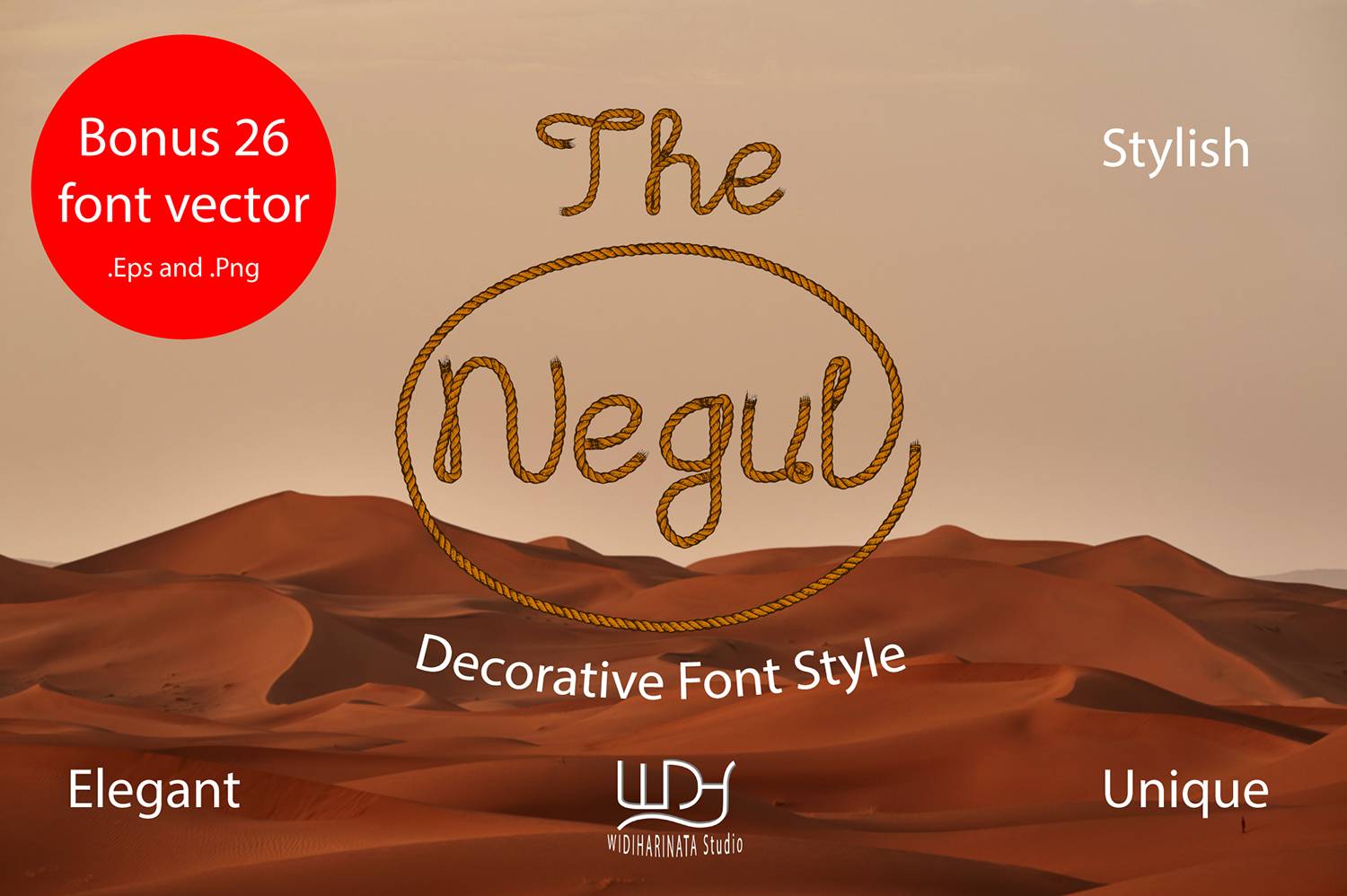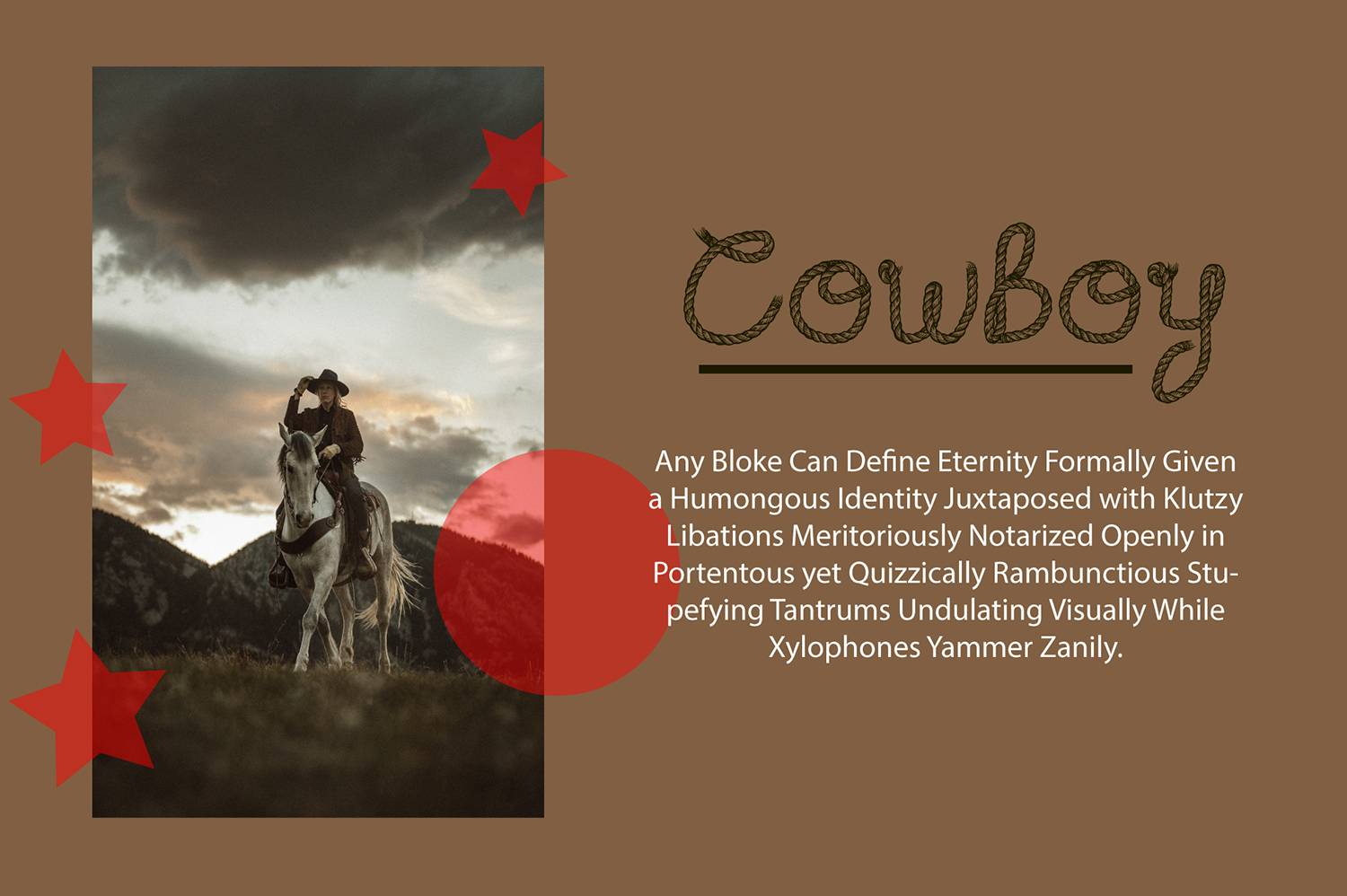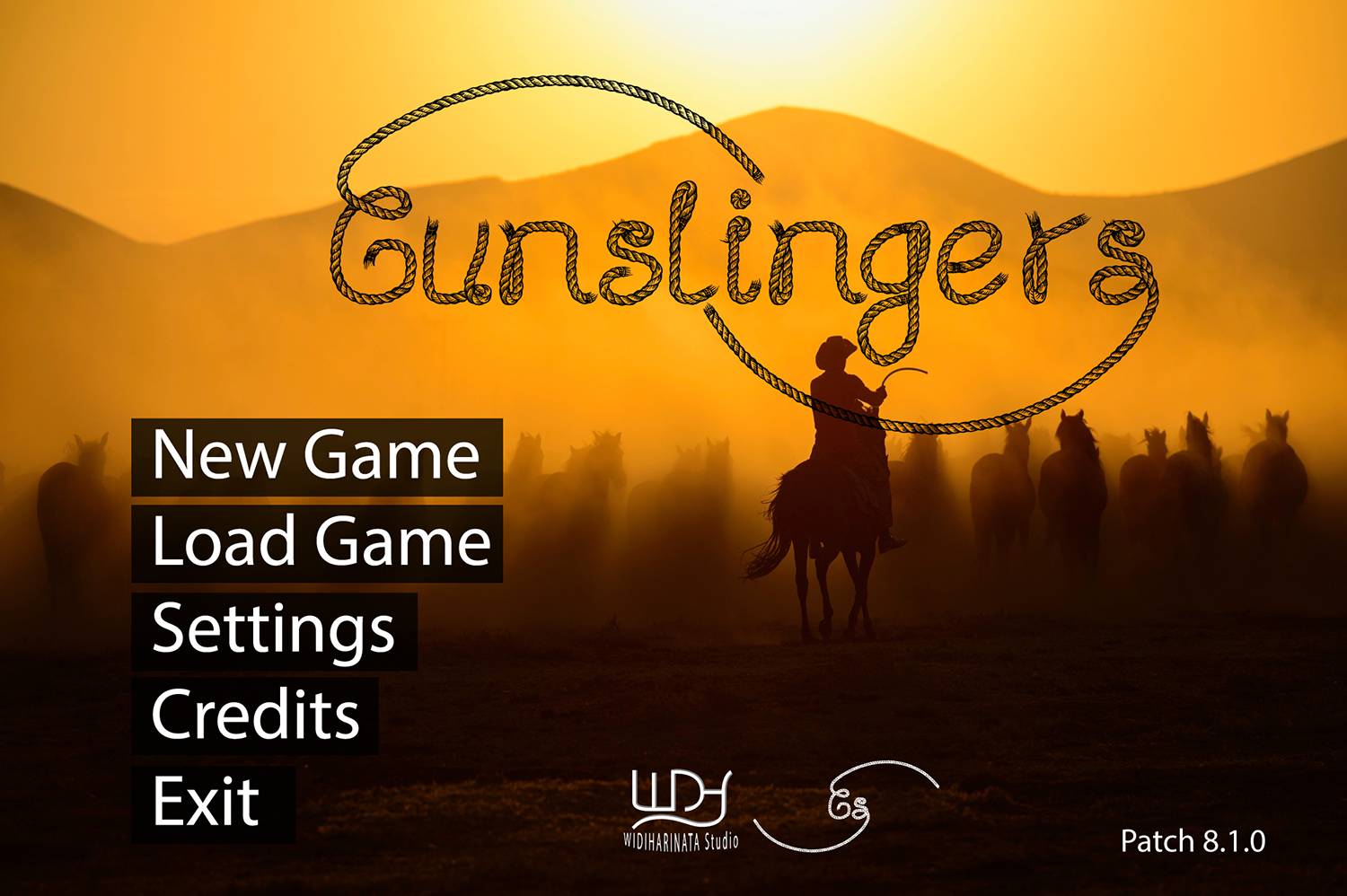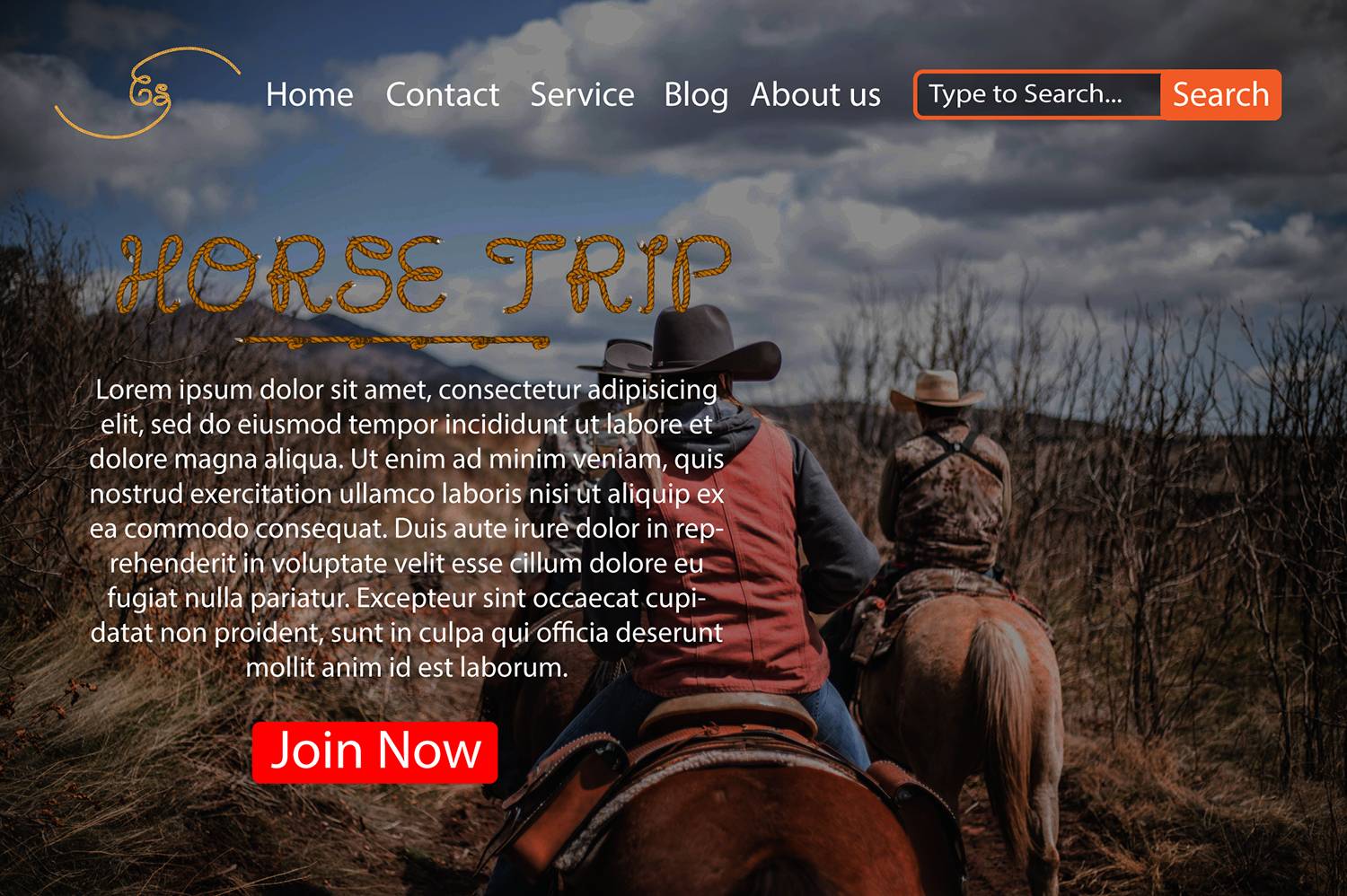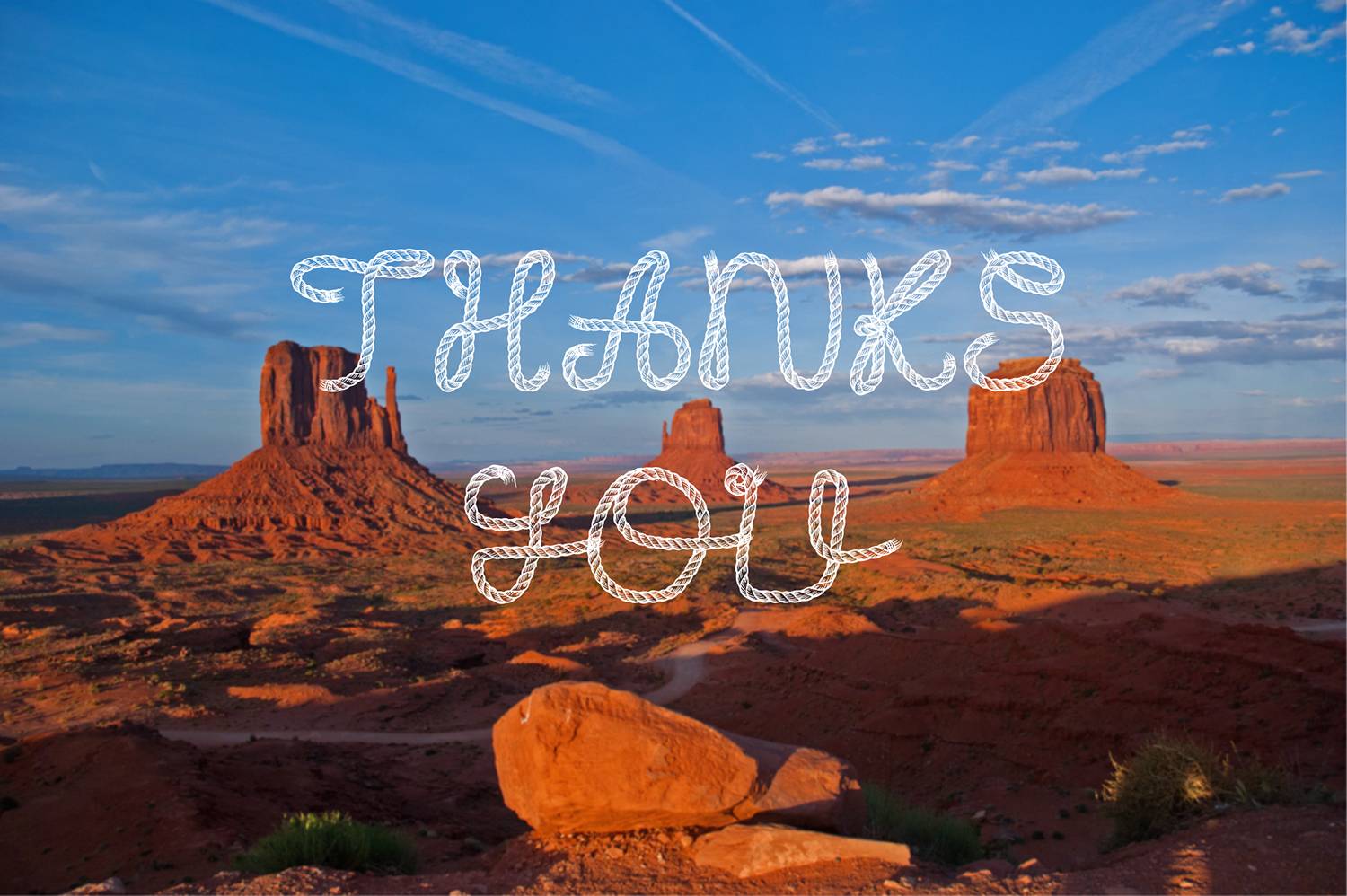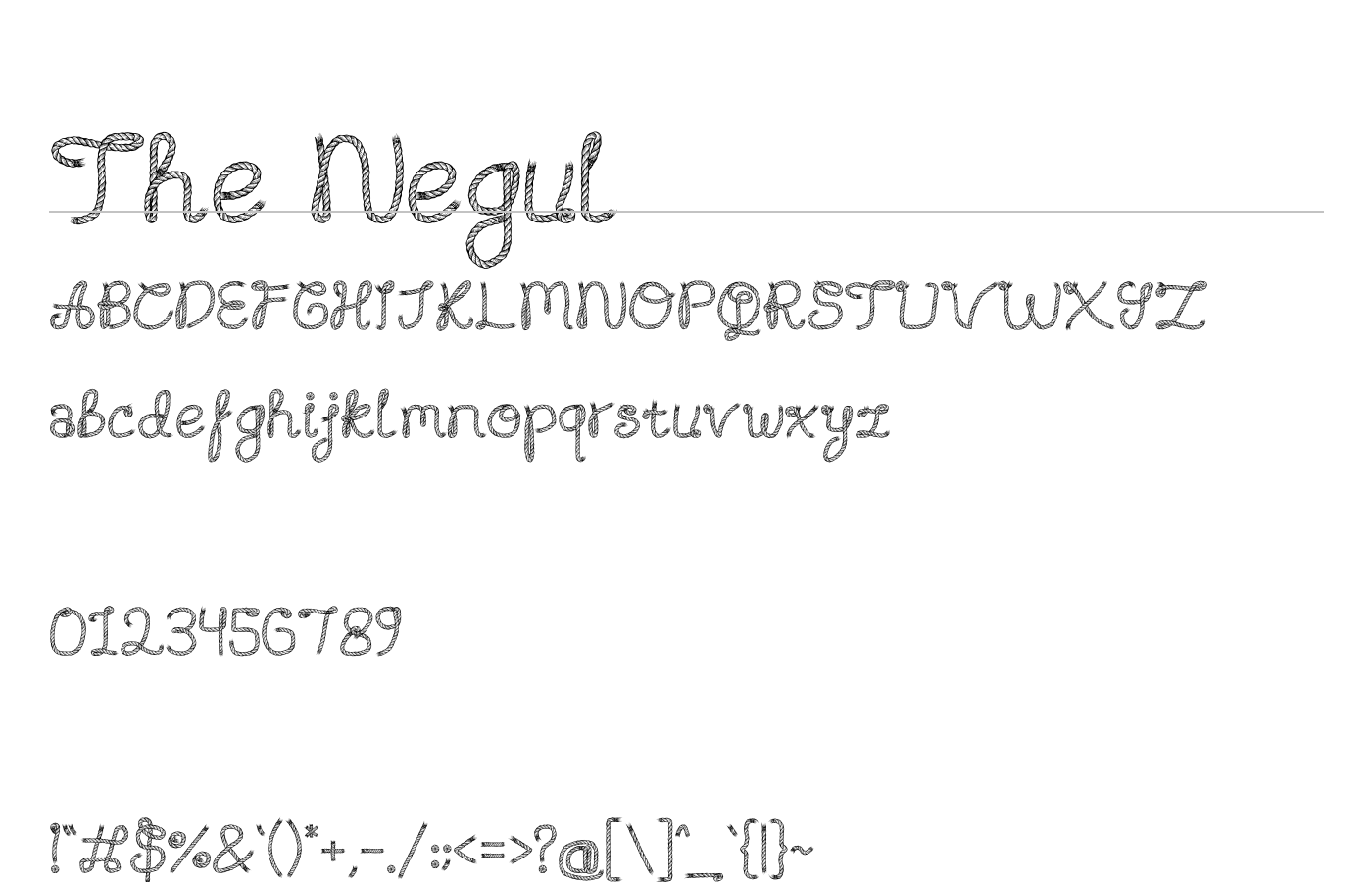
The Negul Font is a playful, decorative script that mimics the texture and form of twisted rope, giving it a hand-crafted, nautical feel. Its intricate detail and casual curves make it ideal for creative headlines, branding, and designs that want to evoke a fun, adventurous, or rustic vibe. This font adds character and charm, making it perfect for themed packaging, event invitations, and unique logo designs.
The Negul Font
About The Negul Font
| Font family | The Negul Font |
| Designer | I Kadek Widiharinata |